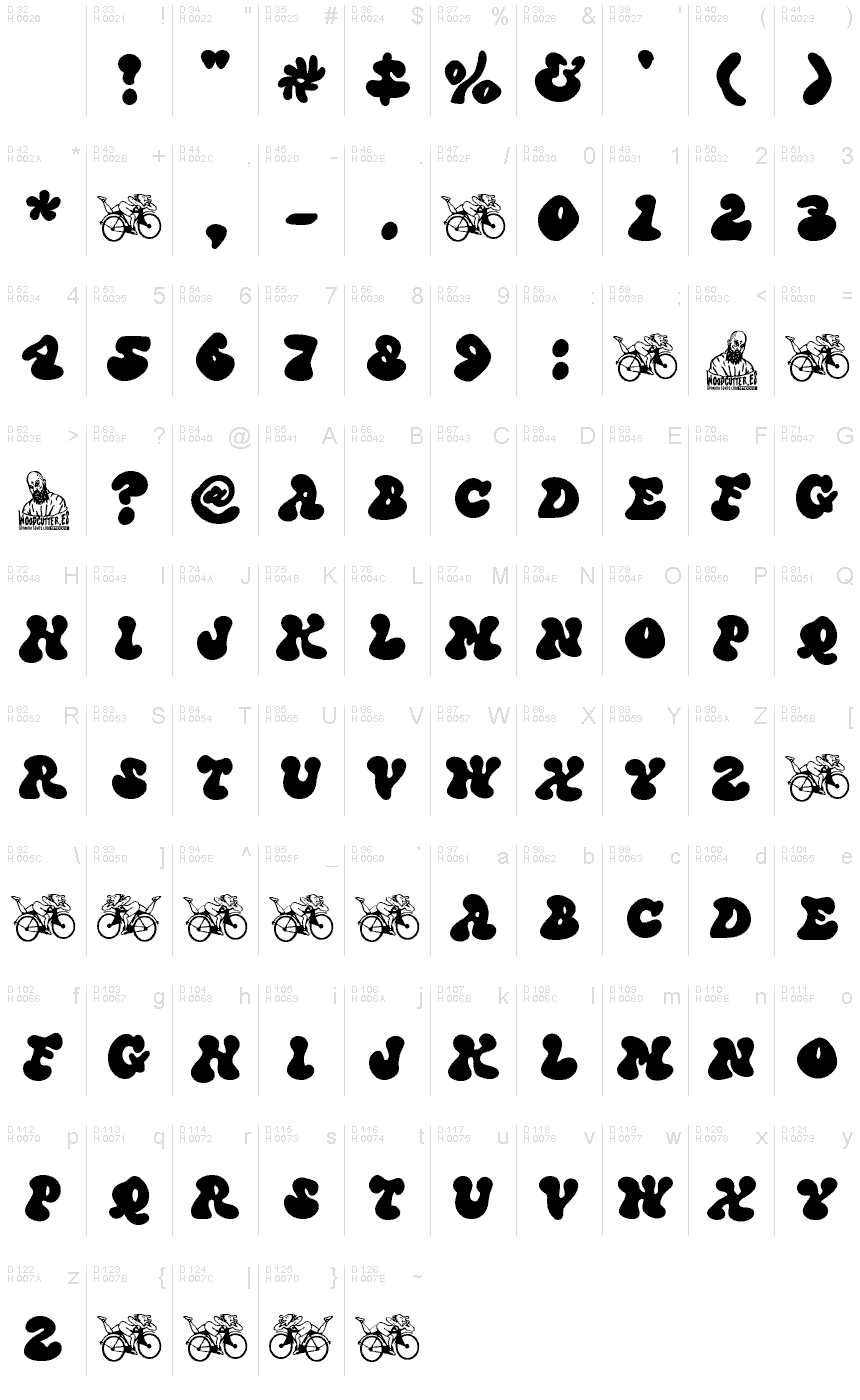
LSD in the Water
LSD in the Water font by Woodcutter is a display typeface with a groovy style that’s inspired by retro 1970s aesthetics. Bold and playful, it features organic curves and an expressive presence that gives a pop element to the texts where used.
This free bold display font works for vintage-themed branding, logo design, posters, stickers, typography artwork, festival promotions, apparel design, shop signs/decorations, album covers, blog headers/titles, and advertisements.